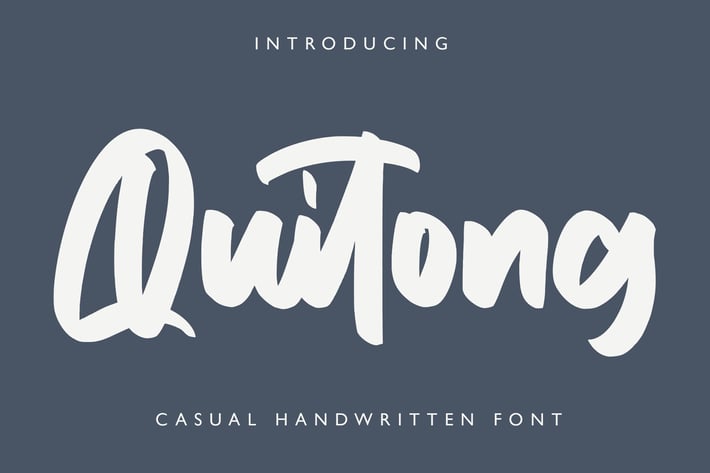
Quitong - Handwritten Font
Quitong - Handwritten Font is a handwritten with a natural & stylish flow. This collection of scripts is perfect for personal branding. this works well for many applications. Everything from personal branding & wedding invitations to advertising could benefit from this collection of signature fonts